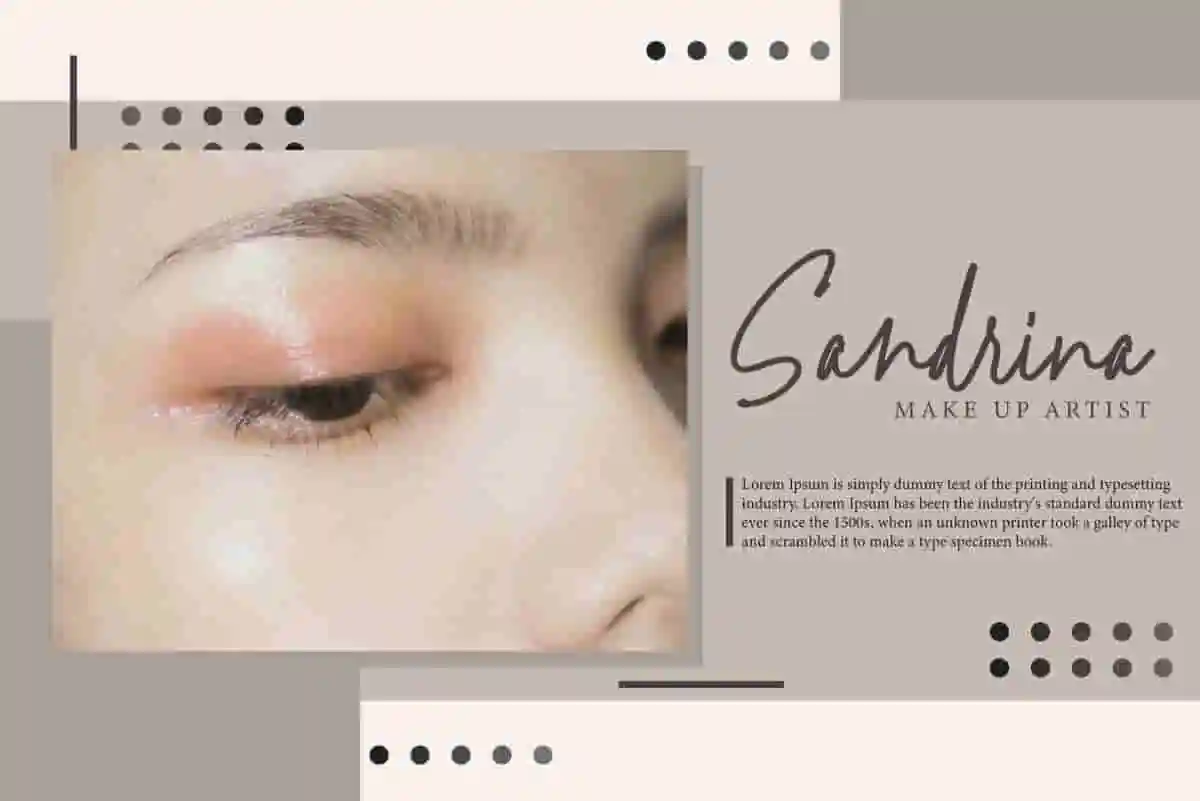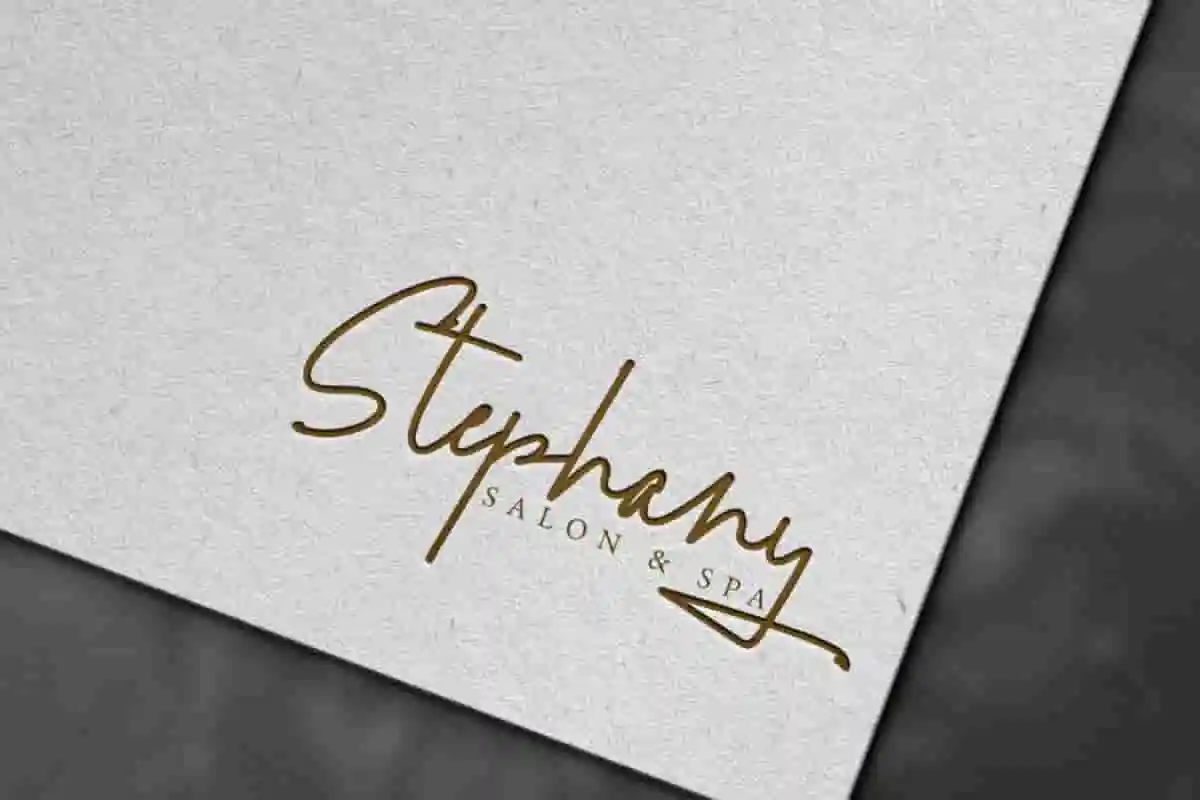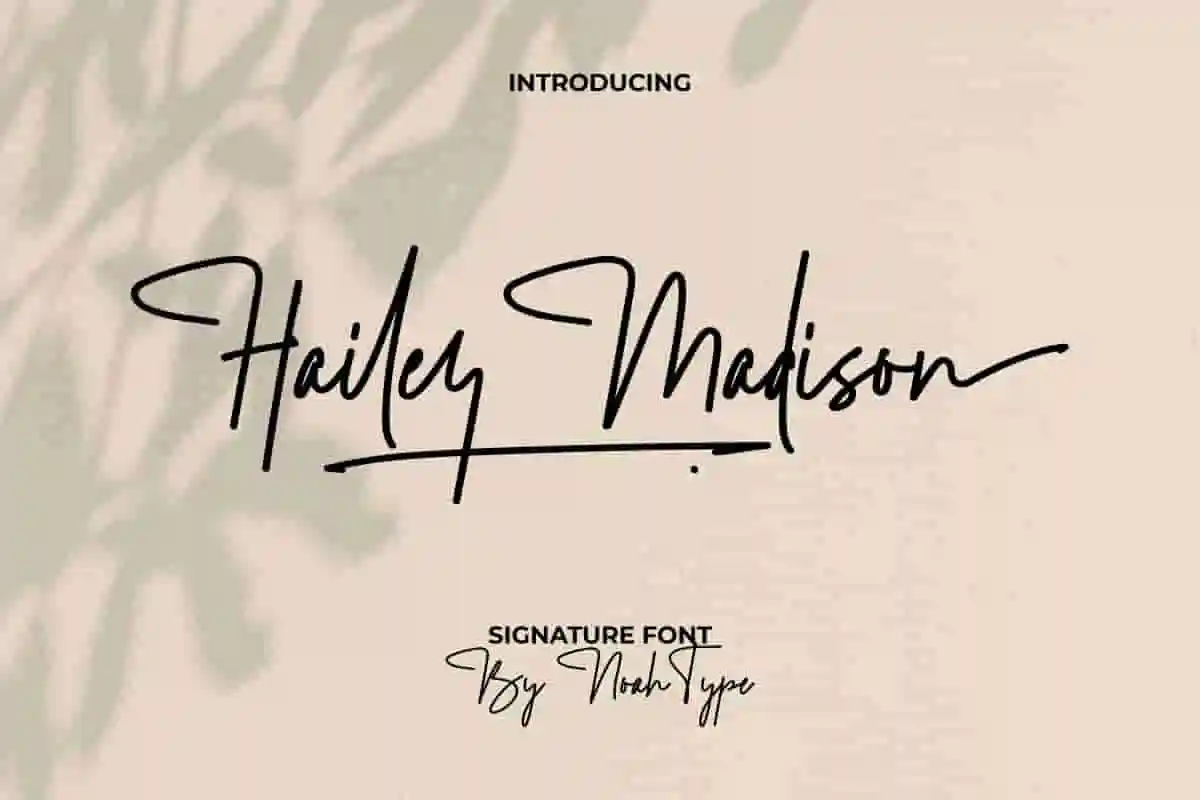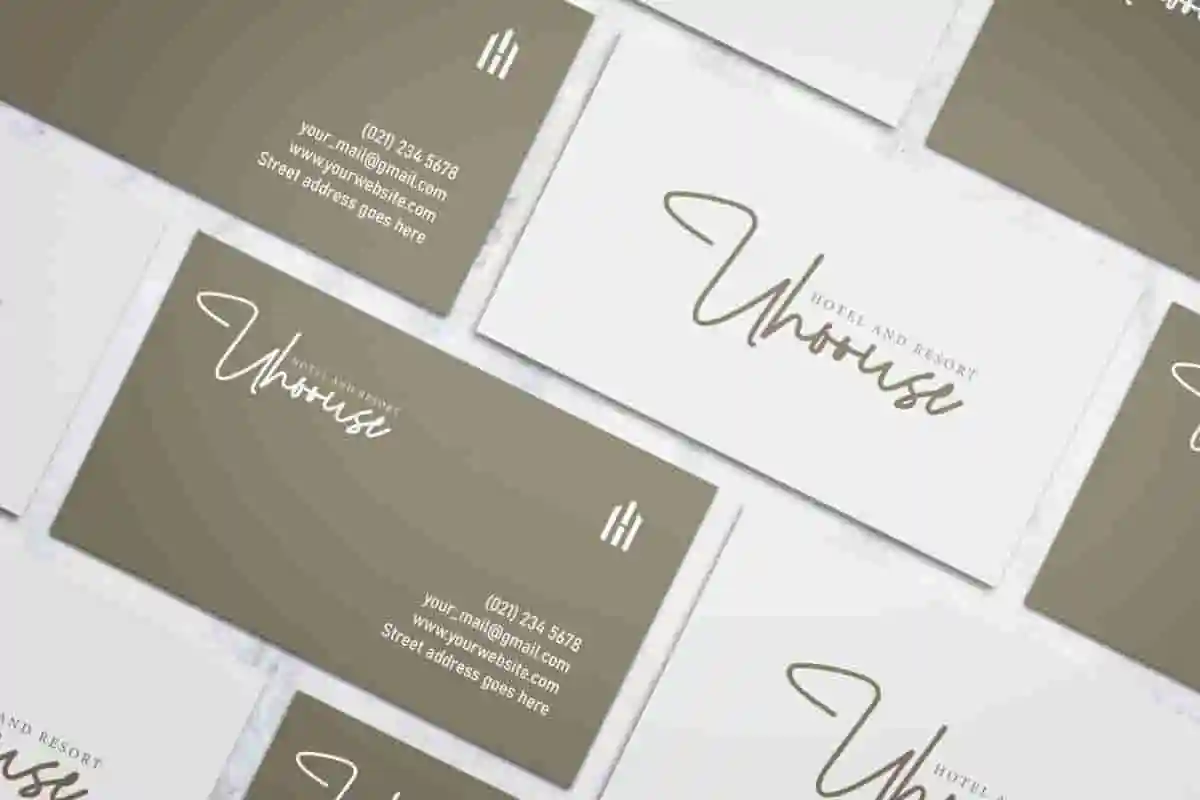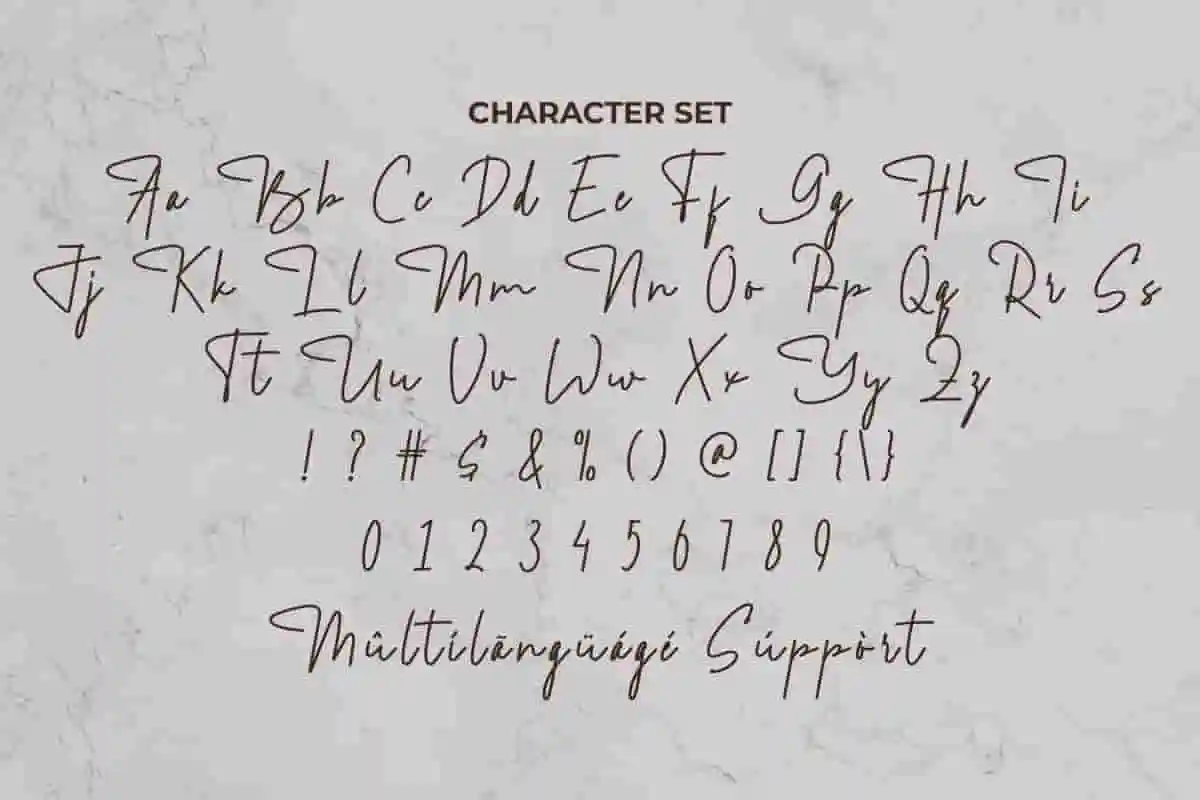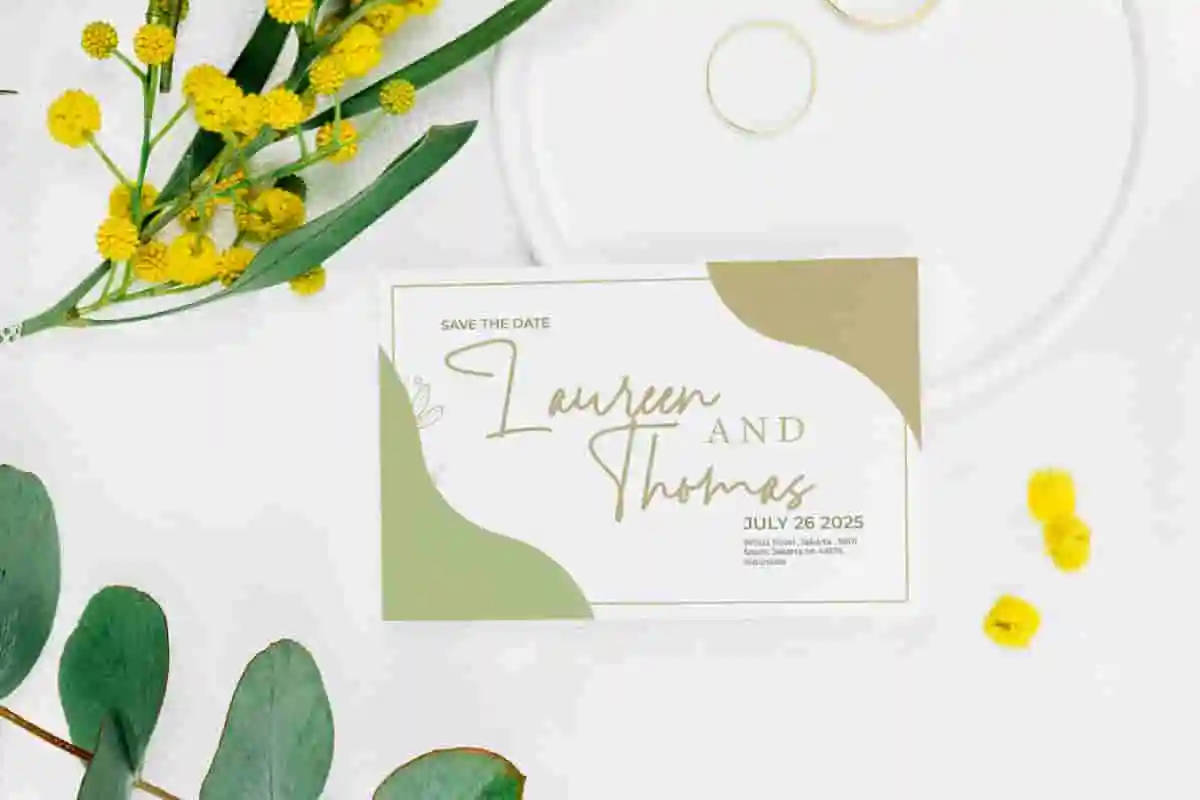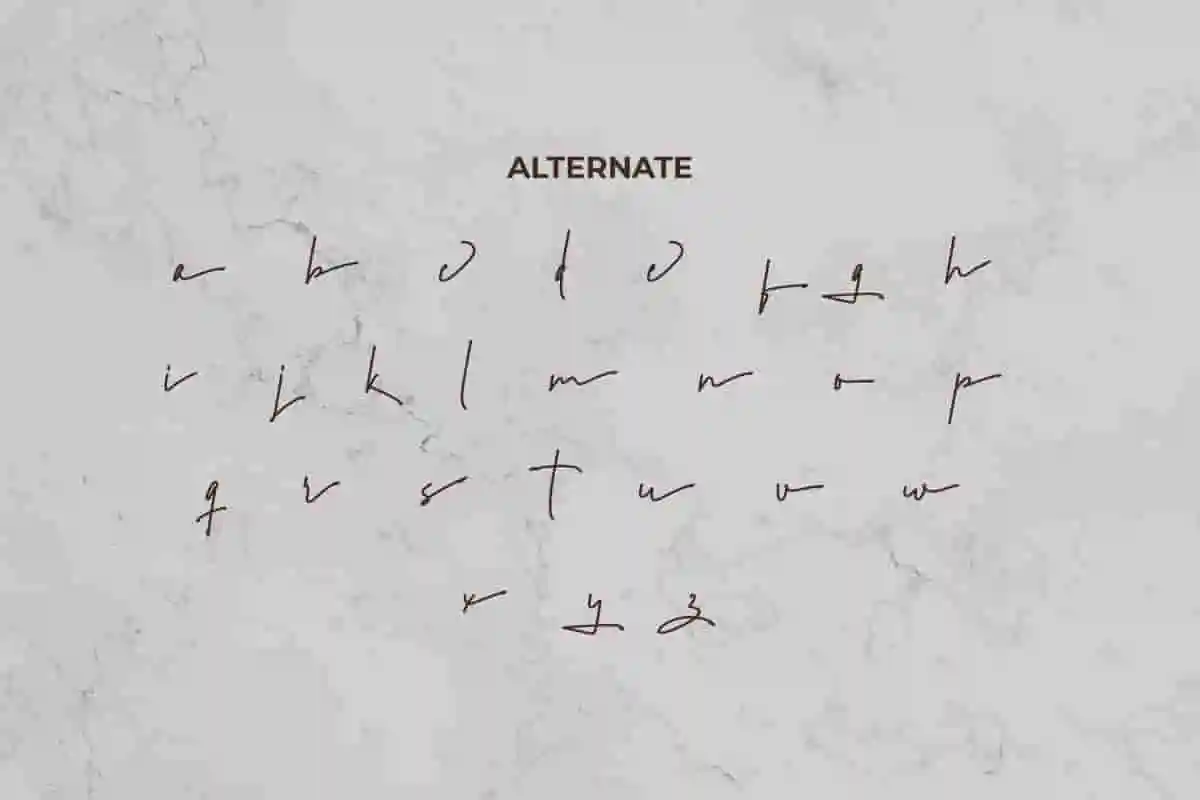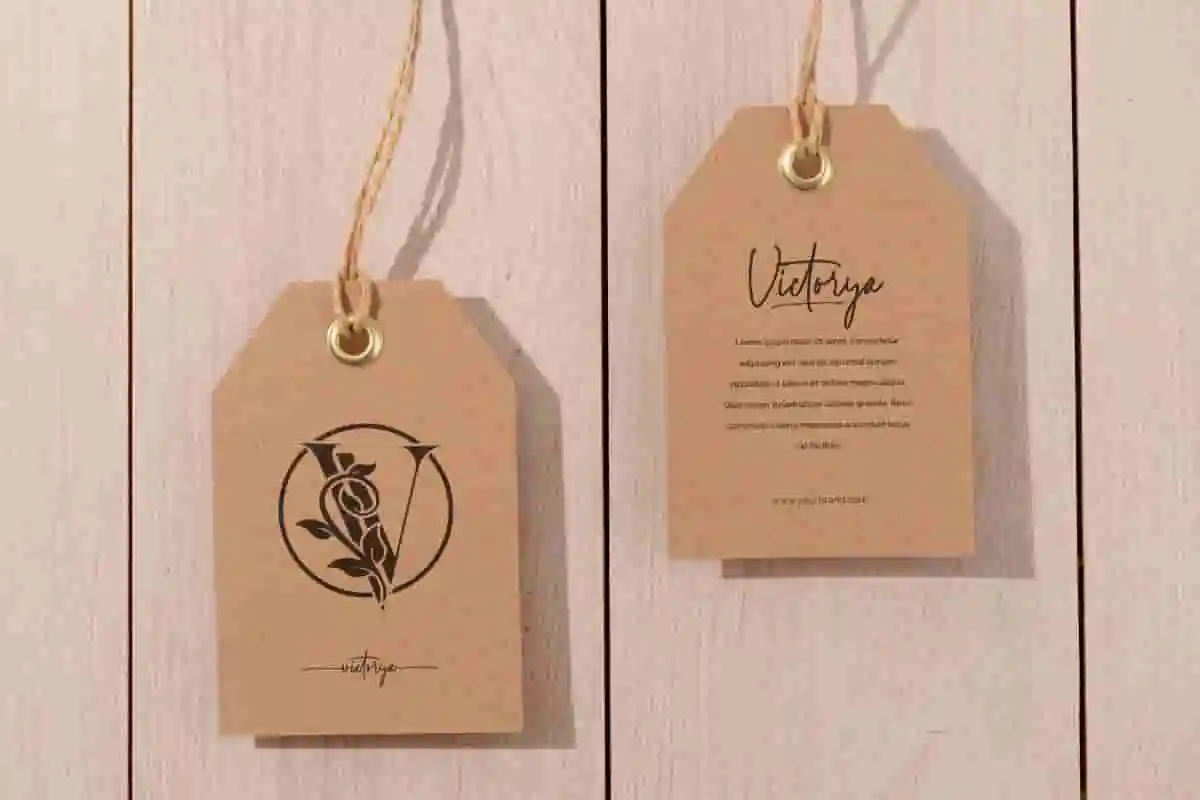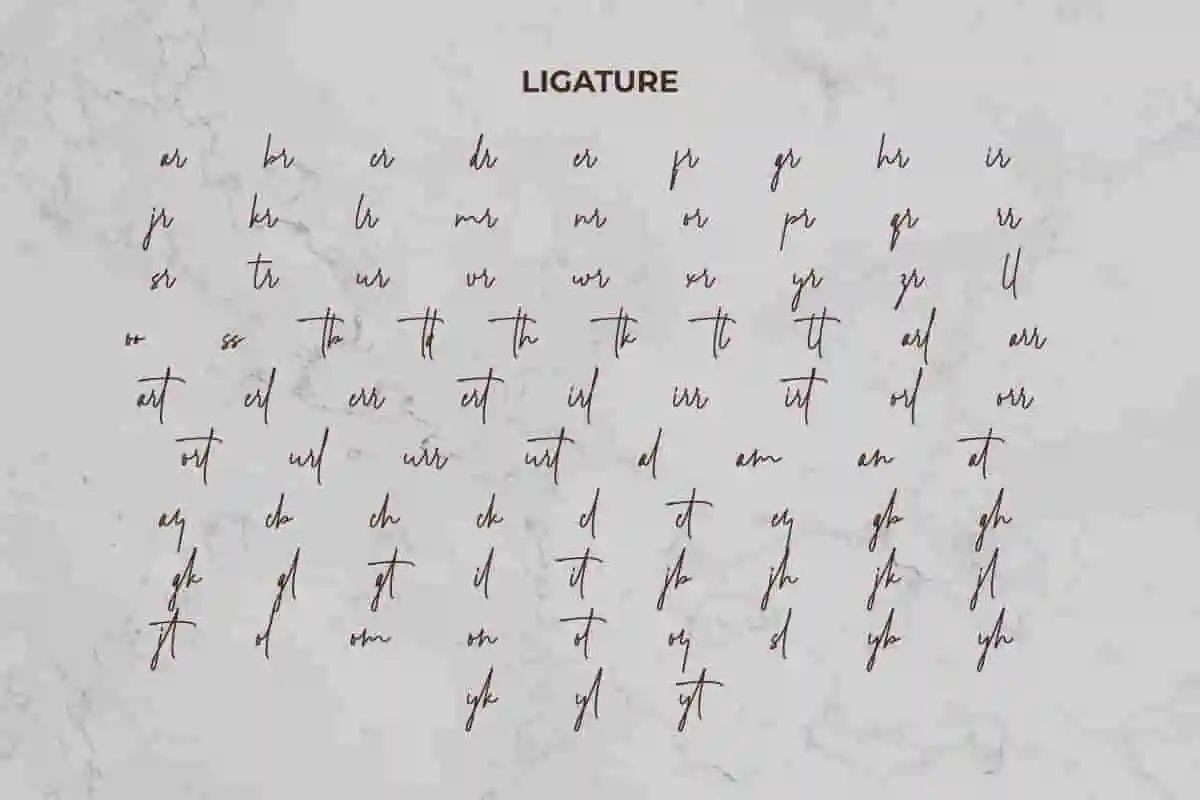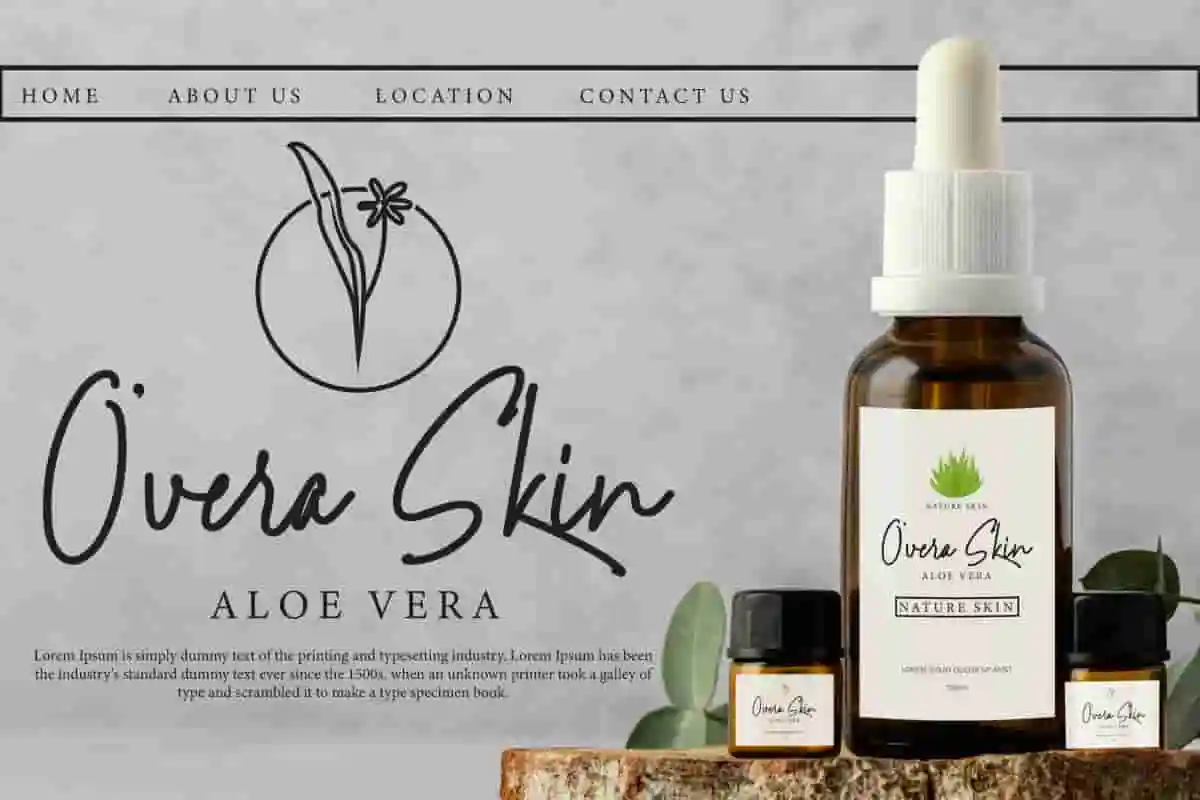
Hailey Madison Font is a casual signature font with handwriting style. This font is carefully crafted in every scratch to look natural so it can create a masterpiece that is perfect for any of your projects. This awesome script font would be perfect for any business or industry that requires elegance, such as architect, artist, cosmetic, fashion, florist, homeware, photography, resort, salon and spa, wedding, writer, and more!
Hailey Madison Font includes full set of Uppercase and Lowercase Basic Characters, Numerals and Punctuation. Also it contains alternate, ligature, and swoosh characters to create a natural signature look by adding more aesthetic and beautiful fonts to enhance your extraordinary projects. Hailey Madison Font would be great for your projects such as branding logo, brochure, business card, label, product packaging, quote, signage, website, wedding invitation, and much more!
Hailey Madison Font supports multilingual languages (including multiple currency symbols). With a simple installation, it will be ready to use both on Windows machine or Mac. In order to use alternative characters, usually we just need to block the end letters and select alternative letters on glyphs option. It really common in almost any software (Character Map for Windows and Font Book for Mac). It work well on Adobe software such as Illustrator, Photoshop and several other software.